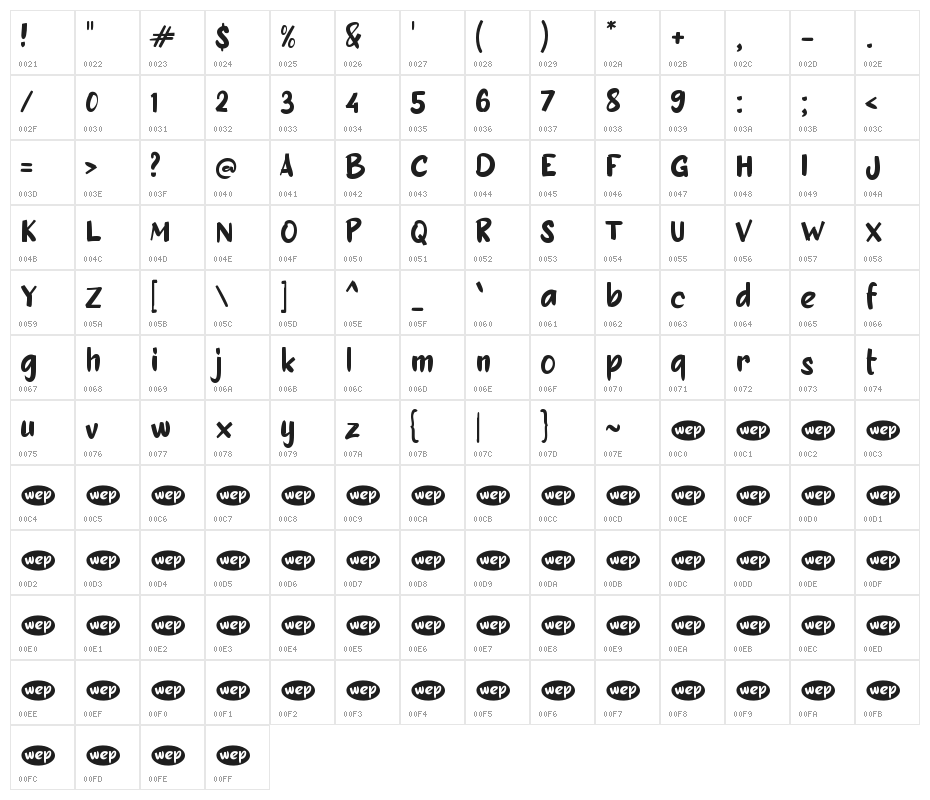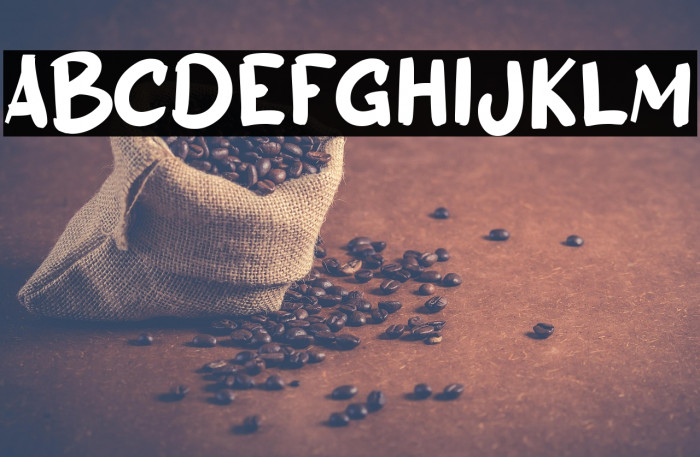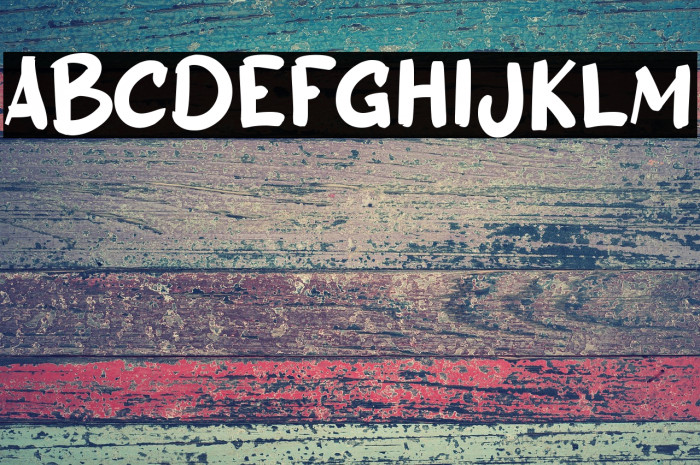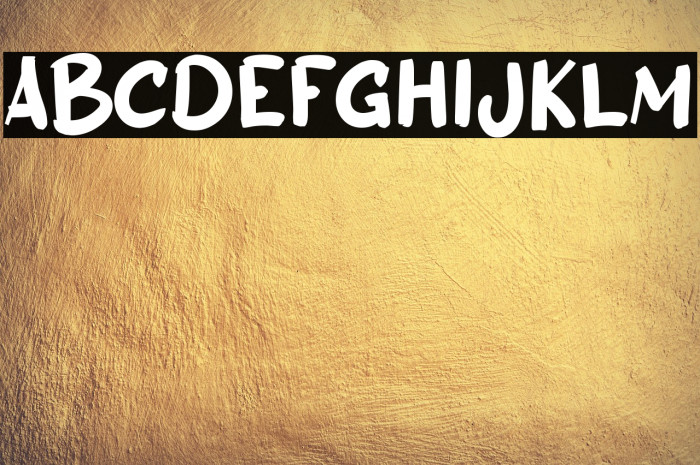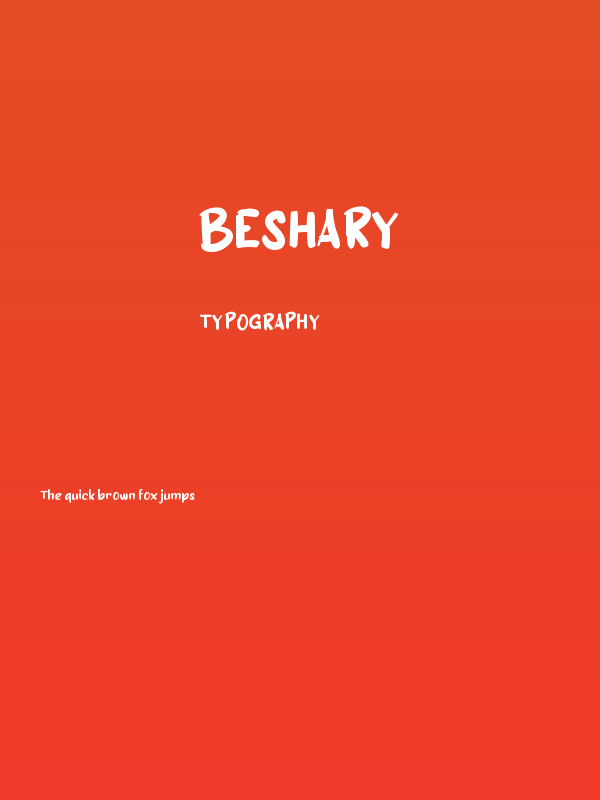
Beshary Font
| Gesamtstil | Playful, Casual |
| Anwendungsfall | Headlines, Logos, Informal Text |
| Vorgeschlagene Projekte | Ideal for greeting cards, children's books, playful branding, and social media graphics. |